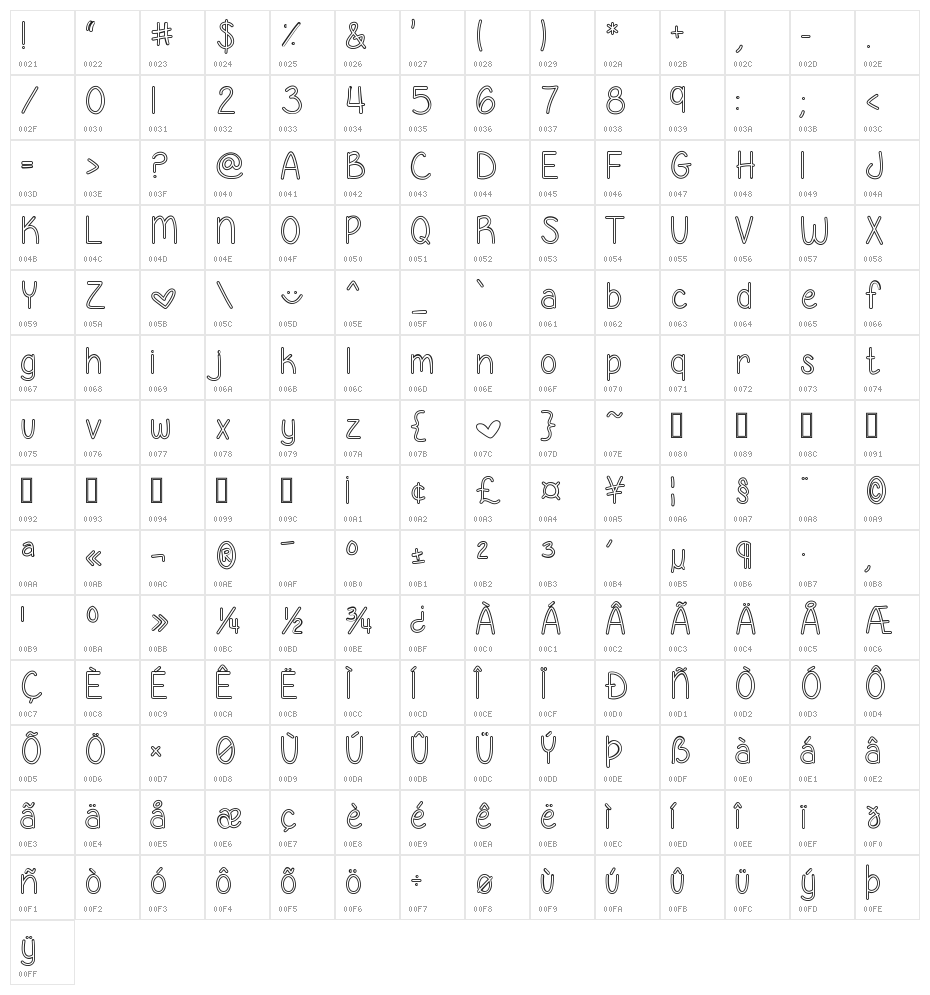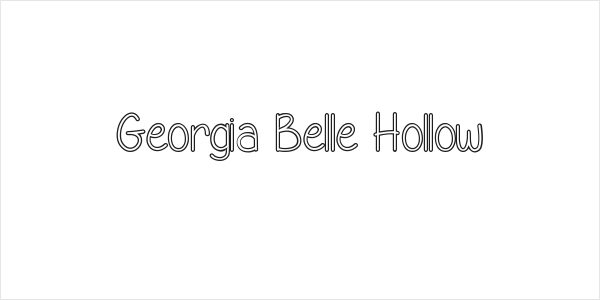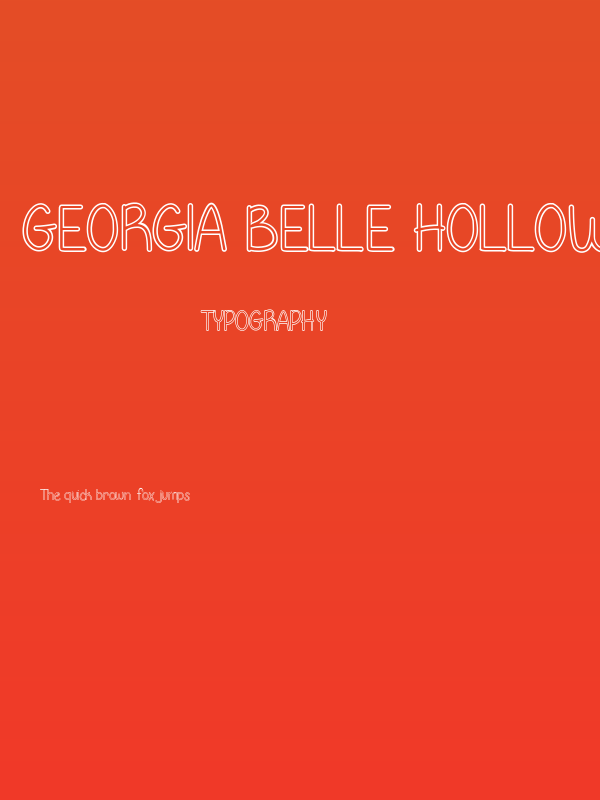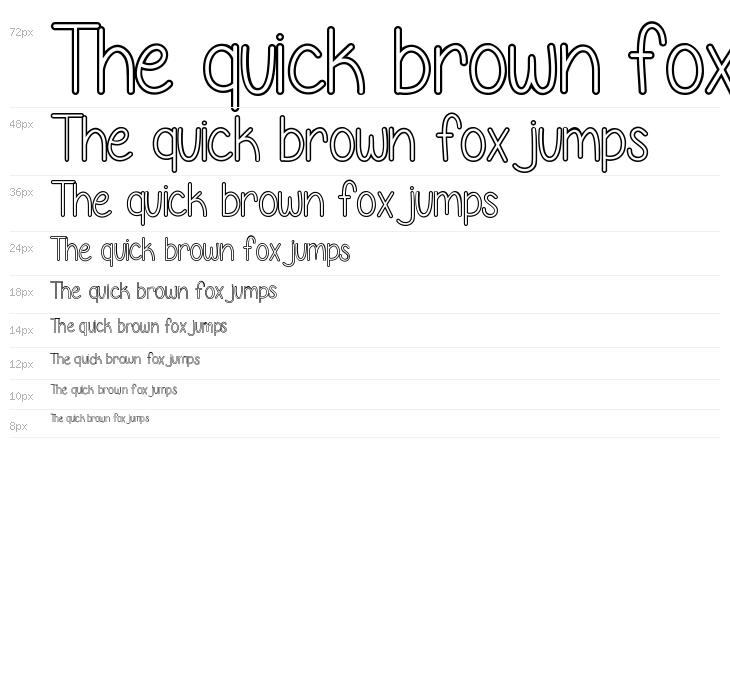
Georgia Belle Hollow Font
Georgia Belle Hollow Description
This font features a playful and whimsical design with hollow, rounded letterforms that give it a light and airy appearance. The characters are uniformly outlined, creating a consistent and cohesive look across both uppercase and lowercase letters. The numbers and special characters maintain this style, ensuring versatility in various applications. Its unique design makes it stand out, offering a friendly and approachable aesthetic that is perfect for creative projects.
| Proposed Projects | Ideal for children's books, playful branding, greeting cards, and creative posters. |